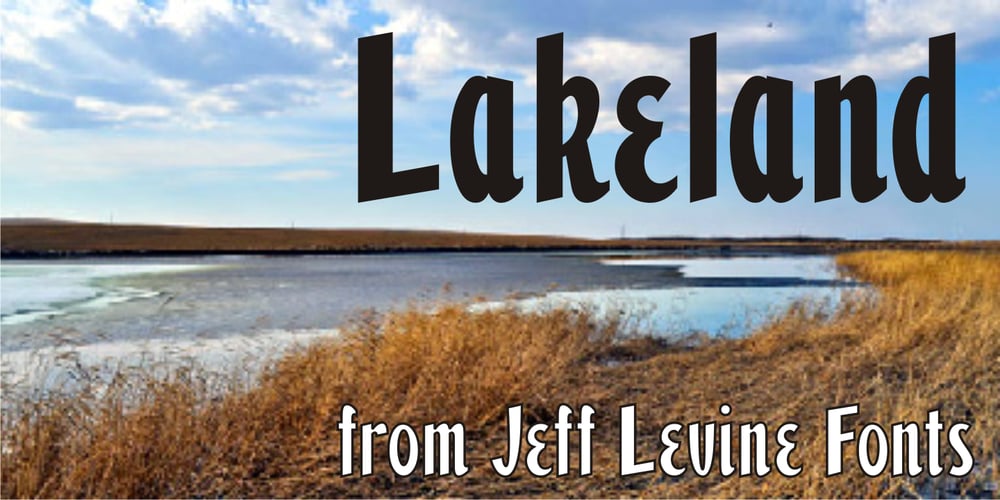
Lakeland JNL Font Family was designed by Jeff Levine and published by Jeff Levine. Lakeland JNL contains 1 styles and family package options. Lakeland JNL was inspired by lettering seen on a vintage container of Yankee brand motor oil. Originally all-caps on the package, the remaining characters were developed to expand on this casual semi-script design which was popular during the 1940s.